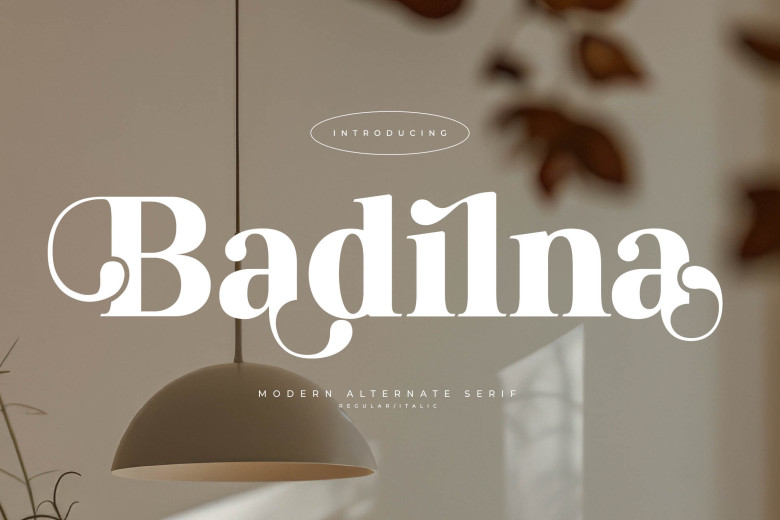
Badilna Font
Badilna is a chic serif font that displays an incredibly stunning design. This font with amazing styles will look great in modern concepts by carrying classic and refined features. These graceful letterforms with their elegant serifs are a go-to if you need to have a sophisticated and subtly-dated typeface for your next project.
Badilna Serif Font